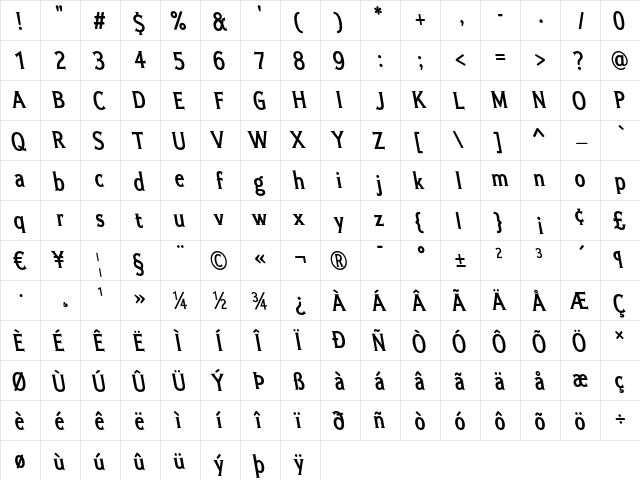
Ideal Gothic Oblique Bold Font Preview
Design Context for Ideal Gothic Oblique Typeface
Ideal Gothic Oblique takes a clean, functional approach — its unadorned letterforms prioritise legibility and work reliably across screen and print environments. The slanted form adds forward momentum and visual energy. Its bold stroke weight gives it real presence on the page.
A strong choice for UI design, app interfaces, bold signage, and corporate brand systems.
Font Pairing: Use Ideal Gothic Oblique for headlines alongside a lighter-weight sans or serif for body copy to establish clear visual hierarchy.
Pro Tip: Pair Ideal Gothic Oblique with a display or serif font for headlines — its neutral character makes it an excellent supporting player in complex typographic systems.